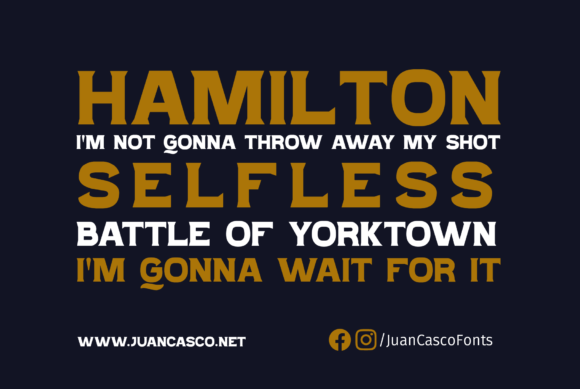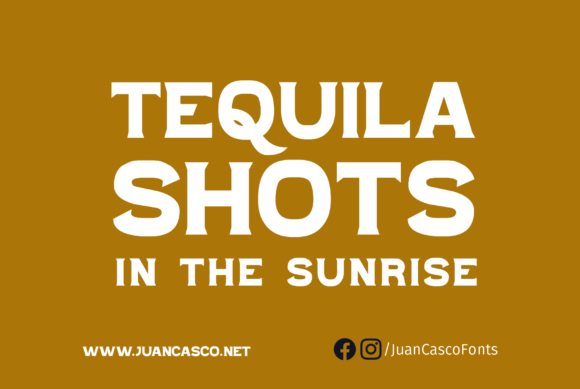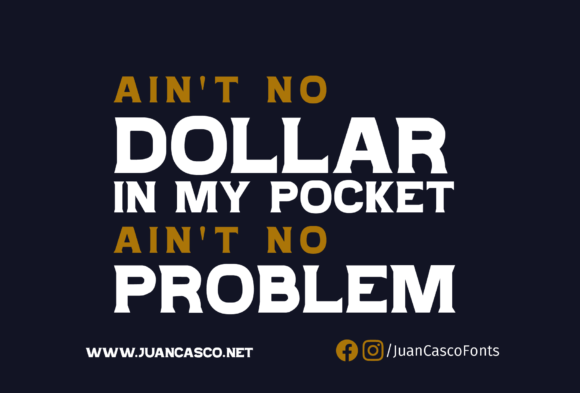
Introduction to Master Serif Font
Master Serif feels playfully nostalgic and delivers an incredible vintage aesthetic.
Use this serif font to add that special retro touch to any design idea you can think of .
Key Features of Master Serif Font